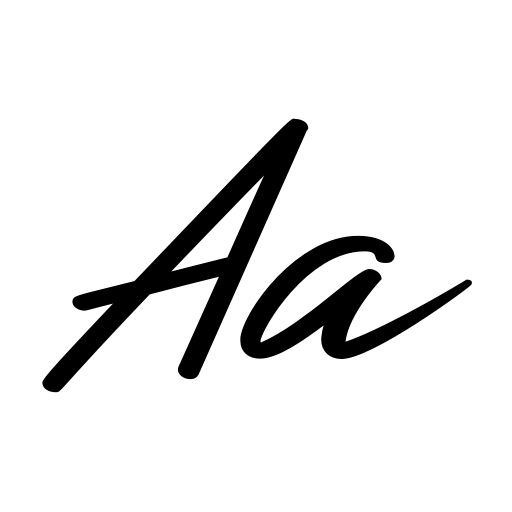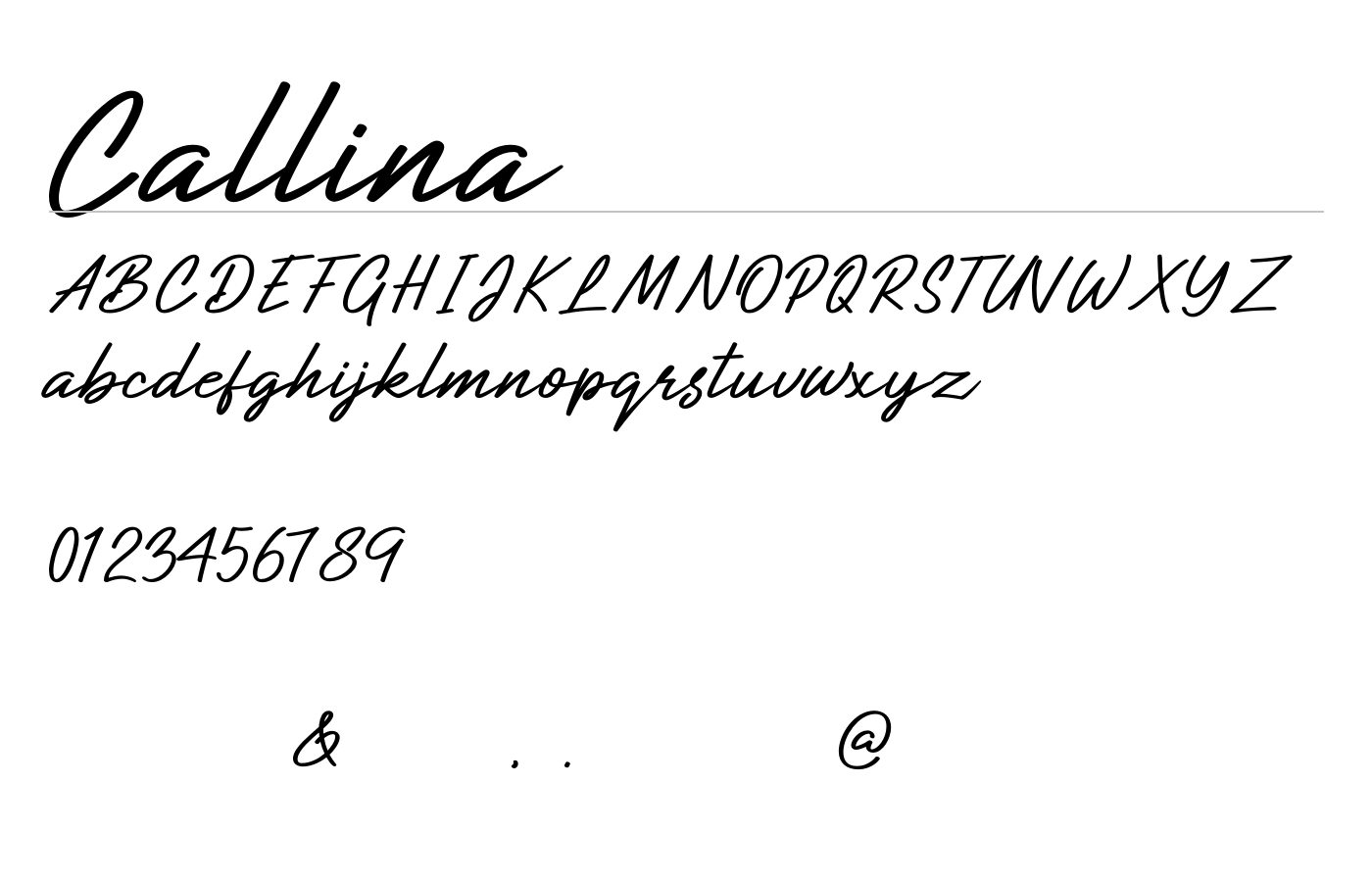
Callina is a graceful script font with a smooth, flowing style that mimics elegant handwriting. Its slender, slightly slanted letterforms and consistent stroke weight give it a sophisticated yet approachable feel, making it perfect for invitations, branding, and stylish editorial designs where a personal, refined touch is desired.
Callina Font
About Callina Font
| Font family | Callina Font |
| Designer | Bluestudio / Winarno |